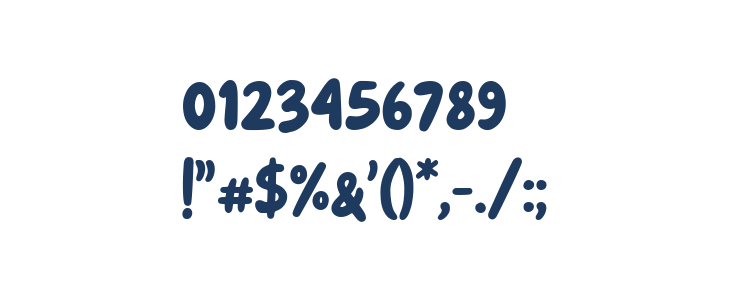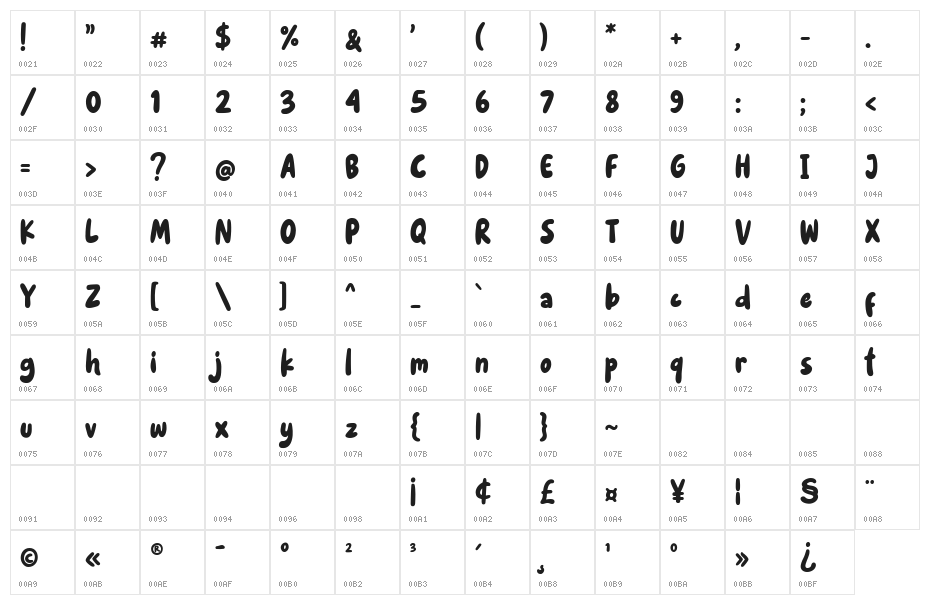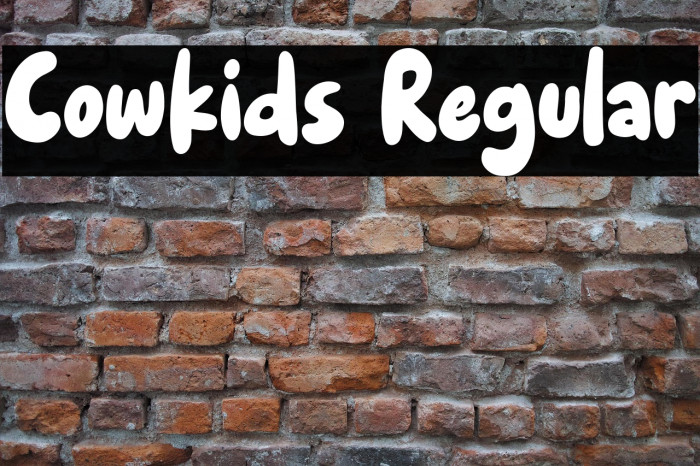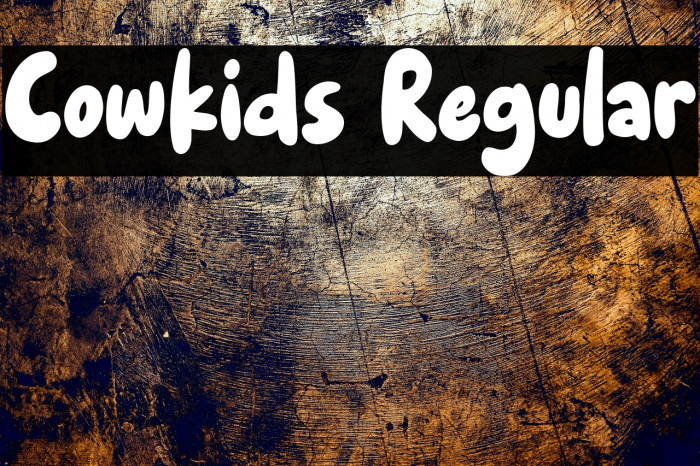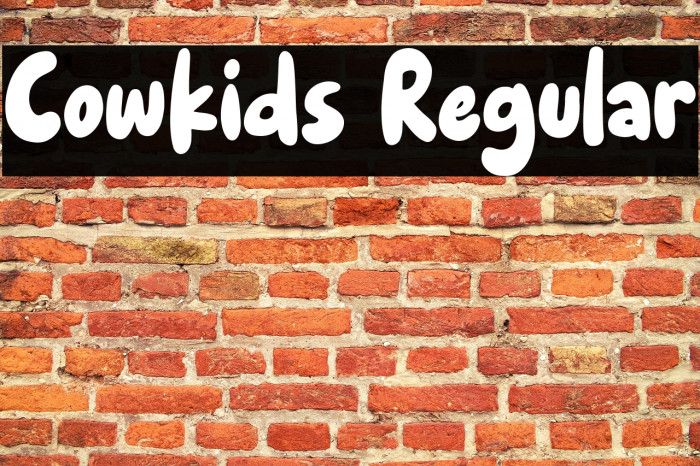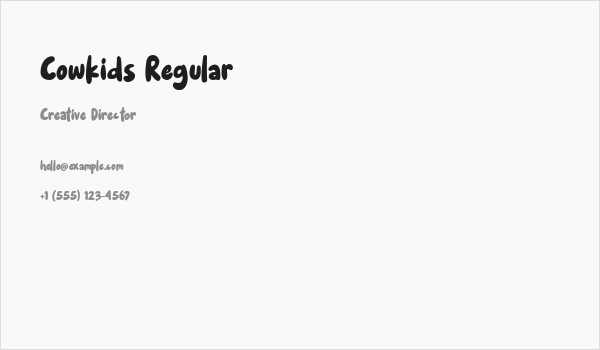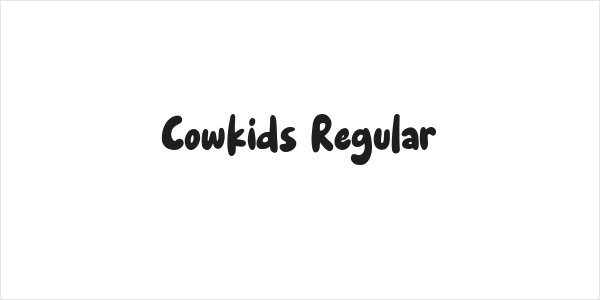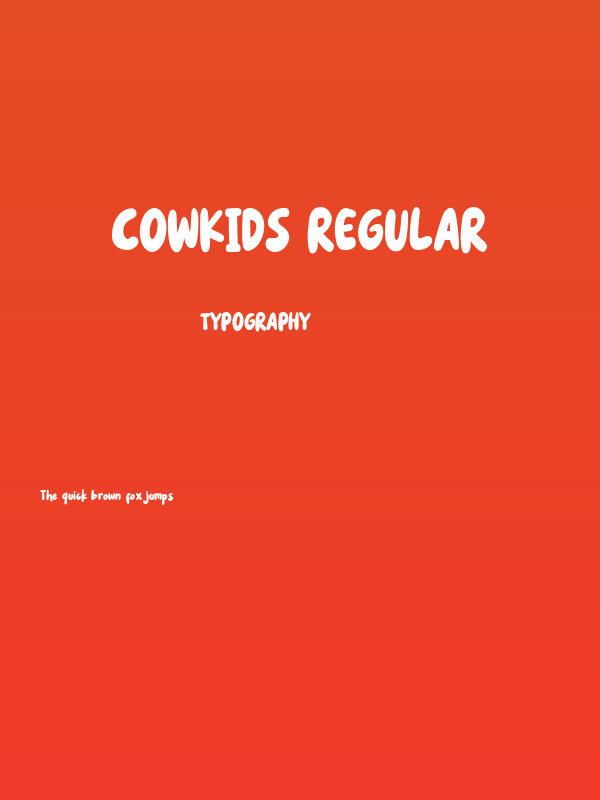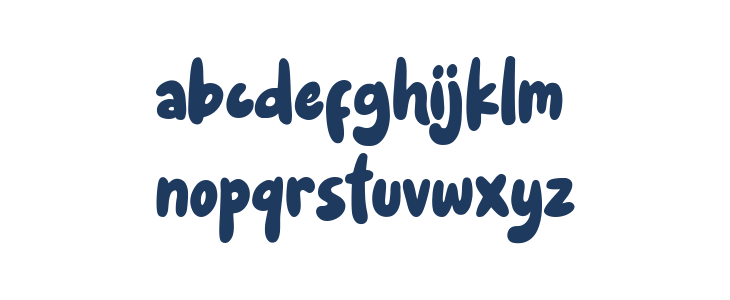
Cowkids Regular Font
Cowkids Regular Description
This playful and bold font features rounded, thick strokes that give it a friendly and approachable appearance. The characters are slightly irregular, adding a whimsical touch that enhances its charm. The uppercase and lowercase letters maintain a consistent style, with a slight slant that suggests movement and energy. The numerals and special characters are equally bold and rounded, ensuring uniformity across all elements. This font is perfect for projects that require a fun and lively aesthetic.
Overall StylePlayful
Proposed ProjectsIdeal for children's books, playful branding, event invitations, and casual posters.